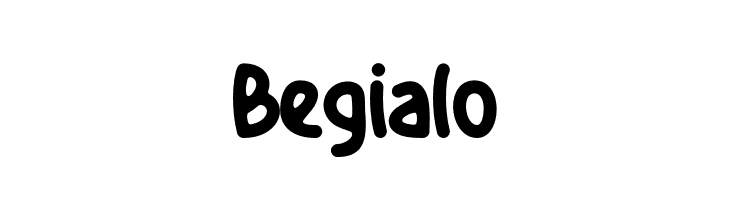
A classic serif font with high contrast and elegant serifs.
A bold, brush-style font with dynamic strokes and a handwritten feel.
A whimsical, cursive font with a flowing, handwritten style.
A bold, textured, hand-drawn style font with a playful and artistic appearance.
A bold, expressive script font with fluid, interconnected strokes.
A bold, hand-drawn font with an energetic and playful style.
A dynamic, handwritten-style font with elegant, flowing strokes.
A playful, rounded font with consistent stroke width and a modern aesthetic.
A bold, decorative font with vintage flair and intricate serifs.
A flowing, elegant script font with a sophisticated, cursive style.
A decorative and elegant font with intricate swirls and flourishes.
A playful and whimsical font with rounded, consistent strokes and a friendly appearance.
A modern, geometric font with a clean and professional appearance.
A playful and whimsical font with bold strokes and decorative elements.
A modern, outlined font with geometric and dimensional characteristics.
A cursive, handwritten-style font with elegant, flowing strokes.
A dynamic, cursive script font with medium contrast and elegant flow.
A classic serif font with elegant and bold characteristics.
A bold, textured script font with a vintage, handcrafted feel.
A dynamic and lively script font with flowing, interconnected letterforms.
A dynamic and elegant script font with smooth, connected strokes.
A bold, textured font with a distressed, vintage appearance.
A dynamic handwritten font with fluid, connected strokes and a lively appearance.
A playful, textured handwritten font with a casual, dynamic style.
A cursive, handwritten font with elegant, flowing strokes.
A bold, modern sans-serif font with geometric influences.
A playful and whimsical handwritten font with flowing curves and dynamic strokes.
A dynamic and fluid script font with elegant, flowing strokes.
A bold, brush-style font with dynamic, hand-painted strokes.
A bold serif font with a classic and authoritative style.
A bold serif typeface with strong, elegant strokes and pronounced serifs.
A bold, handwritten font with a lively and energetic style.
A dynamic and elegant script font with fluid, cursive strokes.
A classic serif font with high contrast and elegant strokes, perfect for sophisticated designs.